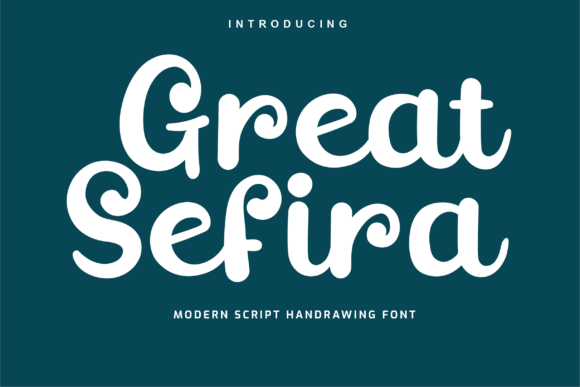
Introduction to Great Sefira Font
Great Sefira results out of a stunning pairing of a brush pen and pencil that makes it look incredibly endearing and authentic.
It will elevate a wide range of design projects to the highest level, be it branding, headings, wedding designs, invitations, signatures, logos, labels, and much more .